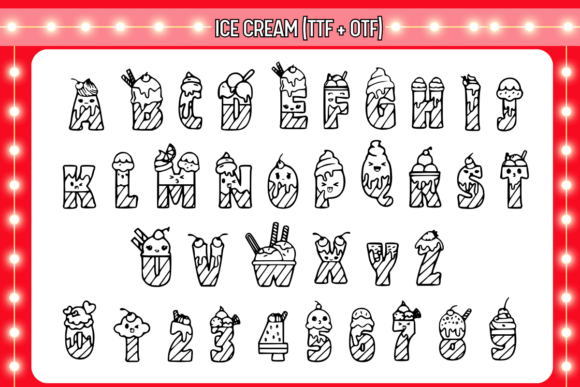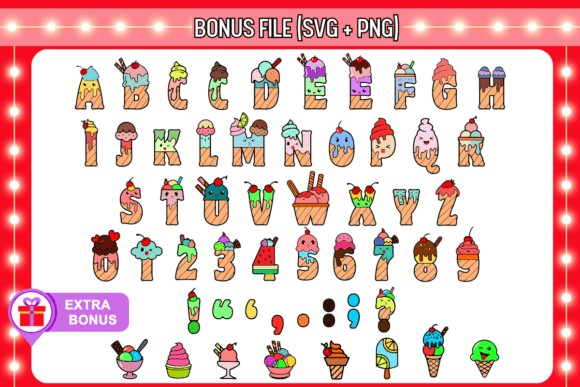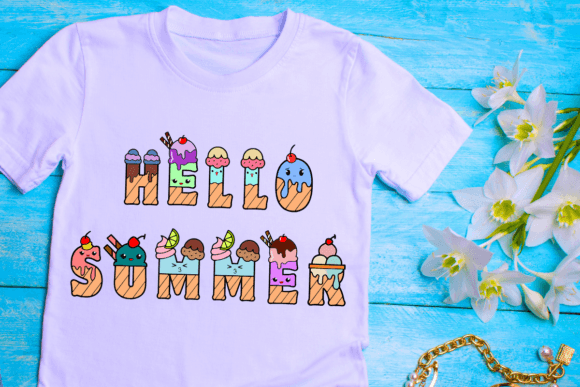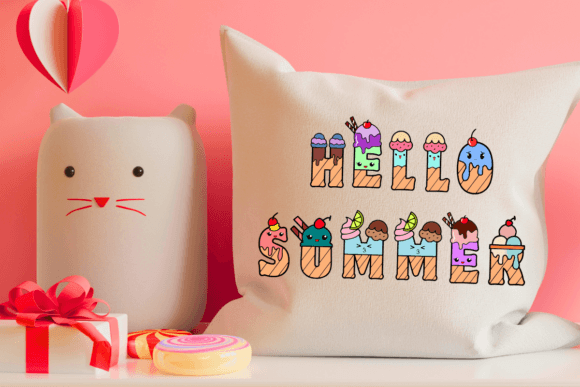
The Sweetest Typography: Introducing Ice Cream Font
Who hasn’t, at some point, stared blankly at a blank canvas, wondering where to start on their next creative project? For designers, this moment can be both thrilling and intimidating – but what if the perfect starting point was right in front of you? For those with a sweet tooth and a love for whimsy, the answer lies in the delightful world of typography.
Enter Ice Cream Font, a playful and decorative typeface where each letter is carefully crafted to resemble a delicious scoop of ice cream. With its creamy textures and colorful toppings, this font is perfect for adding a touch of fun and whimsy to sweet-themed designs. Whether you’re creating a dessert menu, a children’s party invitation, or a social media graphic, Ice Cream Font is sure to bring a smile to your audience’s face.
As a designer, you know the value of having the right tools at your disposal. With Ice Cream Font, you’ll have access to a unique and eye-catching typeface that’s sure to set your designs apart from the rest. So why not give it a try and see how this sweet treat can elevate your creative projects to the next level?
Key Features of “Ice Cream Font”
- Unique Characteristics: The font features a playful, whimsical design with rounded edges and soft lines, making it perfect for use in ice cream shops, bakeries, and other food-related businesses
- Font Style: The font is available in regular, bold, italic, and bold italic styles, providing flexibility for use in a variety of contexts
Designer Review: “Ice Cream Font”
Overall, I think “Ice Cream Font” is a sweet addition to any design project (pun intended). Here are some things that I think work well:
- ✨ Playful and whimsical vibe: This font is perfect for projects that need a lighthearted and fun touch. It’s great for kid-friendly designs, party invitations, or social media graphics.
- ✨ Friendly and approachable characters: The font’s rounded edges and smooth lines give it a friendly feel that’s hard to resist.
- ✨ Versatility: “Ice Cream Font” works well in both digital and print designs, making it a great choice for a variety of projects.
However, I do think there are a few limitations to keep in mind:
- ⚠️ Limited legibility at small sizes: While the font looks great at larger sizes, it can get a bit fuzzy and hard to read at smaller sizes.
- ⚠️ Not ideal for serious or formal designs: The playful vibe of this font might not be the best fit for serious or formal projects, like business reports or academic papers.
Overall, I think “Ice Cream Font” is a fun and versatile font that’s perfect for lighthearted projects. With its playful vibe and friendly characters, it’s sure to add a smile to your design. Just be mindful of its limitations, and you’ll be all set!
Tips for Getting the Most Out of Ice Cream Font
Use the Ice Cream Font for fun and playful designs, such as social media posts, party invitations, or food-related graphics.
Pair the Ice Cream Font with bright and bold colors to create a visually appealing design.
Experiment with different font sizes and combinations to add visual interest to your design.
Yes, you can customize Ice Cream Font to fit your brand’s unique style. The font includes a range of OpenType features, such as ligatures, swashes, and stylistic sets, which allow for creative experimentation and customization. Additionally, you can use font editing software to modify the font’s design and create custom variations.